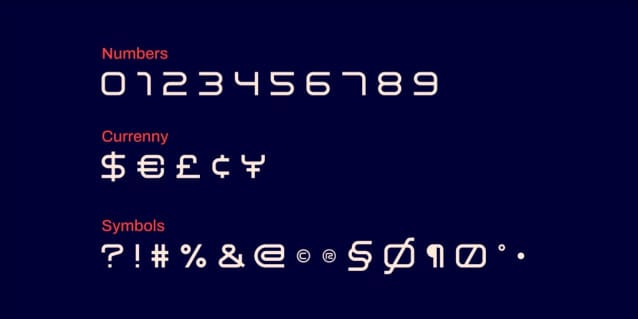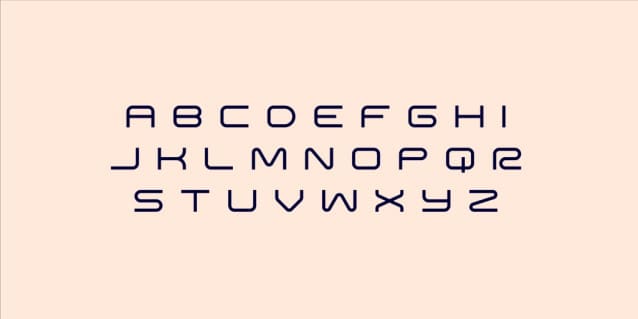
Amped Font
Amped Font, is a futuristic sans serif  typeface that looks stunning when combined or alone. This sans serif font style is easy to read and beautifully designed.